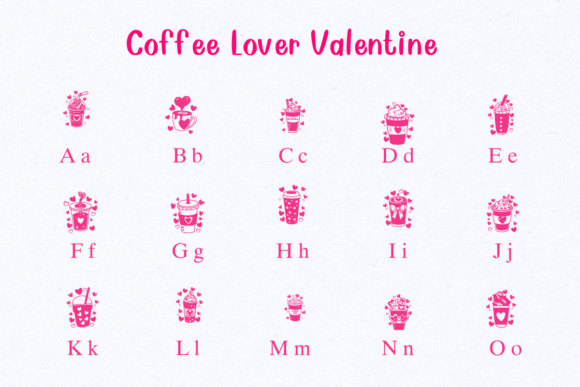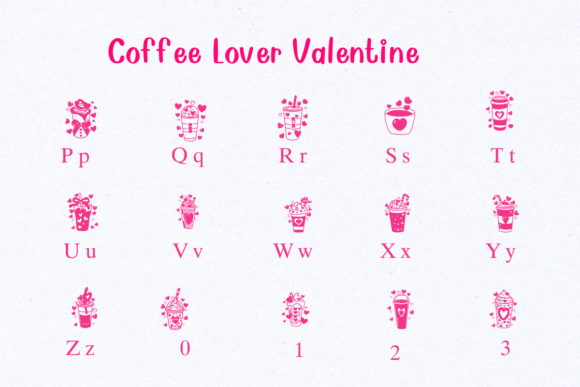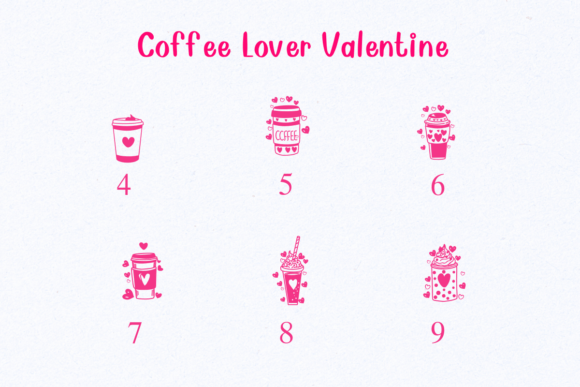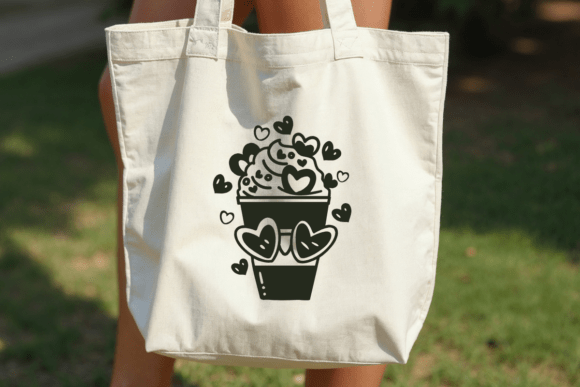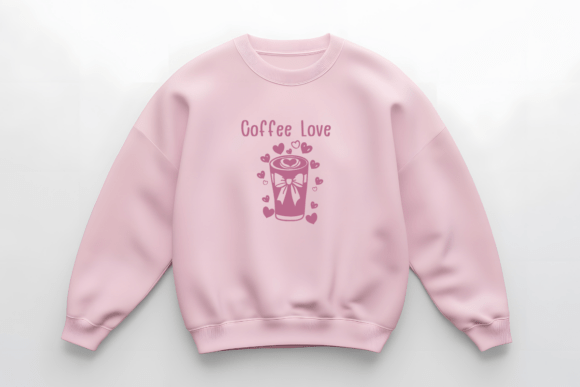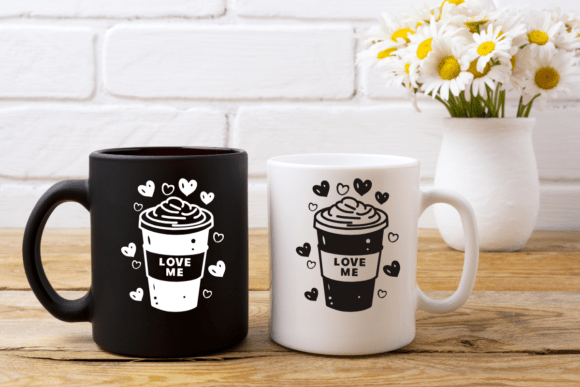
Coffee Lover Valentine Font: The Perfect Blend of Love and Caffeine
Are you a designer or crafter looking for a unique and playful font to spice up your Valentine’s Day projects? Look no further than the Coffee Lover Valentine Font! This delightful dingbats font is a match made in heaven for anyone who loves cafe culture and romantic, holiday-themed imagery.
A Delightful Collection of Illustrative Icons
The Coffee Lover Valentine Font features a vast collection of illustrative icons that are sure to make your designs stand out. From various coffee cups and lattes to milkshakes adorned with hearts, bows, and “Love Me” labels, this font has everything you need to create adorable and eye-catching graphics. Whether you’re designing promotional materials for a coffee shop, creating social media stickers, or crafting personalized packaging, this font is the perfect tool for the job.
Hand-Drawn Style with Endless Possibilities
One of the standout features of the Coffee Lover Valentine Font is its hand-drawn style, which varies from solid silhouettes to detailed line art with playful polka-dot and heart patterns. This versatility allows you to use the font in a variety of creative ways, from simple and bold designs to more intricate and detailed illustrations. The font’s playful and whimsical feel is sure to add a touch of personality to any project.
A Smart and Versatile Tool for Valentine’s Day Marketing
The Coffee Lover Valentine Font is more than just a pretty font – it’s a smart and versatile tool for Valentine’s Day marketing. With its vast collection of coffee-themed icons and romantic imagery, this font is perfect for creating promotional materials that will grab customers’ attention and drive sales. Whether you’re designing flyers, posters, or social media graphics, this font is sure to help you create a buzz around your business.
Perfect for Coffee Shops and Cafes
Coffee shops and cafes can benefit greatly from the Coffee Lover Valentine Font. With its coffee-themed icons and Valentine’s Day imagery, this font is perfect for creating promotional materials that will attract customers and drive sales. From social media graphics to in-store promotions, this font is sure to help coffee shops and cafes create a fun and festive atmosphere that will draw in customers.
The Coffee Lover Valentine Font is a designer’s dream come true. With its vast collection of illustrative icons and hand-drawn style, this font offers endless possibilities for creative projects. Whether you’re designing greeting cards, gift tags, or personalized packaging, this font is sure to add a touch of personality and whimsy to your designs. Crafters can also use this font to create handmade cards, gift boxes, and other paper crafts that are sure to impress.
Key Features of the Coffee Lover Valentine Font
- Vast collection of illustrative icons, including coffee cups, lattes, and milkshakes
- Hand-drawn style with solid silhouettes and detailed line art
- Playful polka-dot and heart patterns add a touch of whimsy
- Perfect for Valentine’s Day marketing and promotions
- Versatile and smart tool for designers and crafters
- Great for coffee shops, cafes, and social media graphics